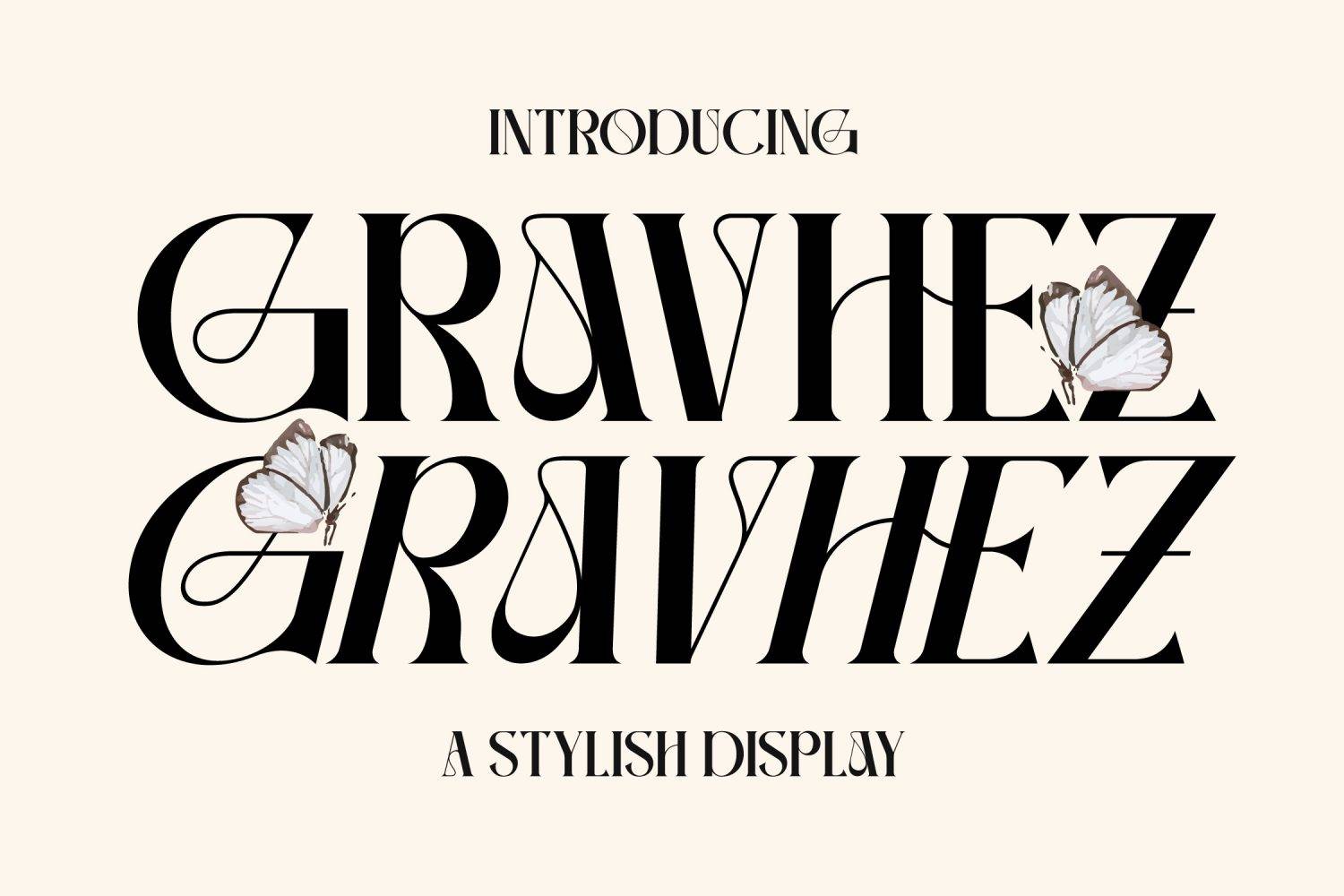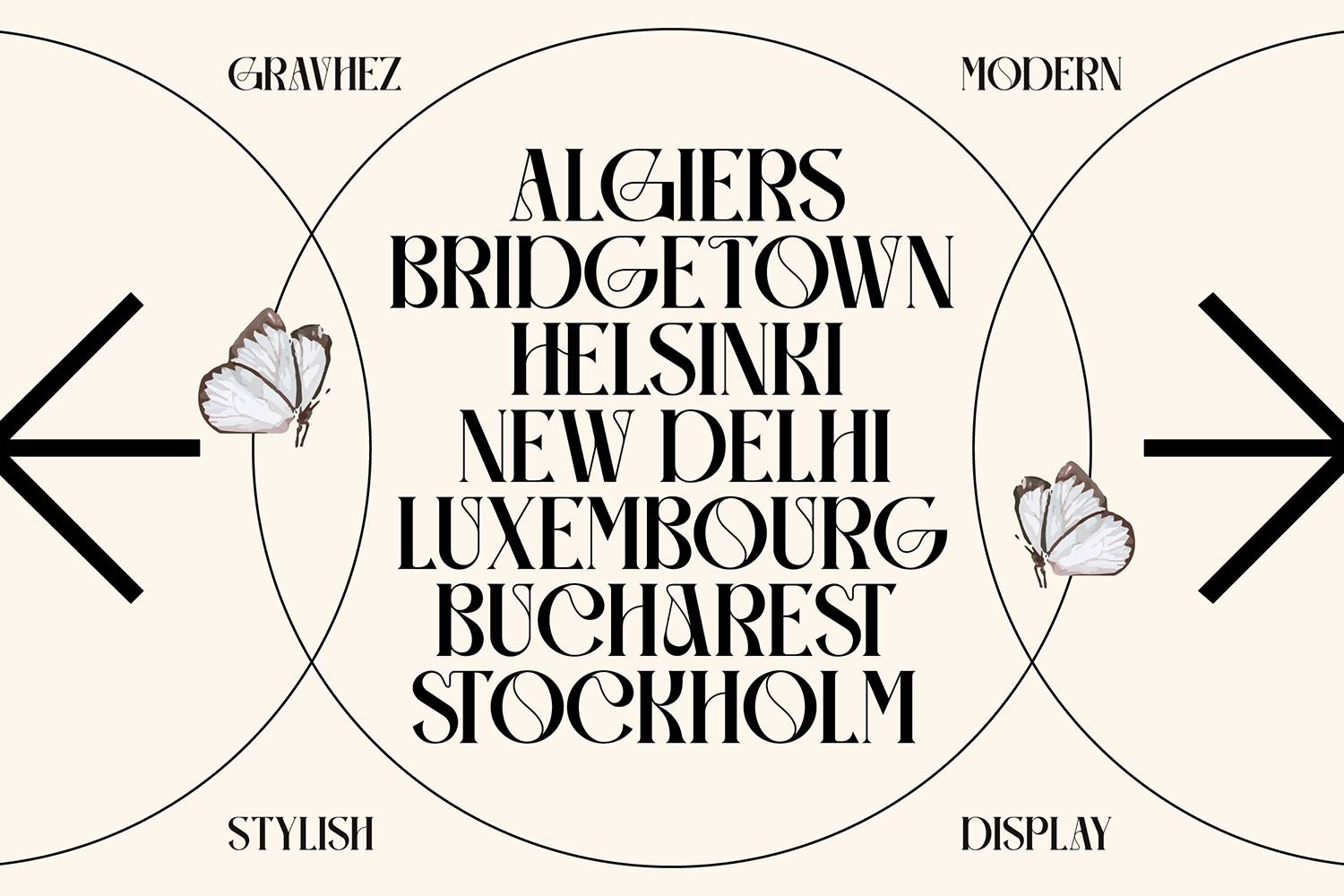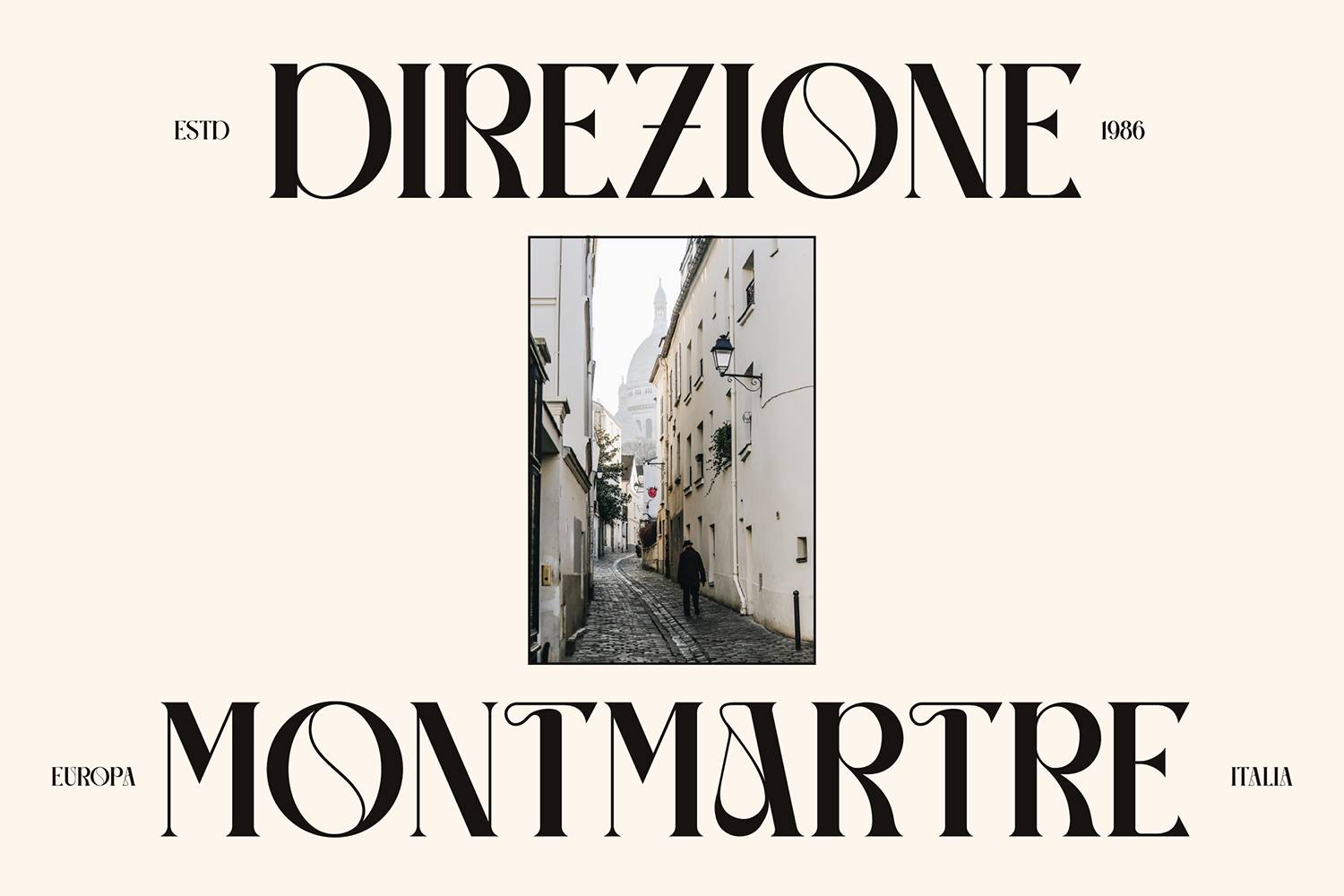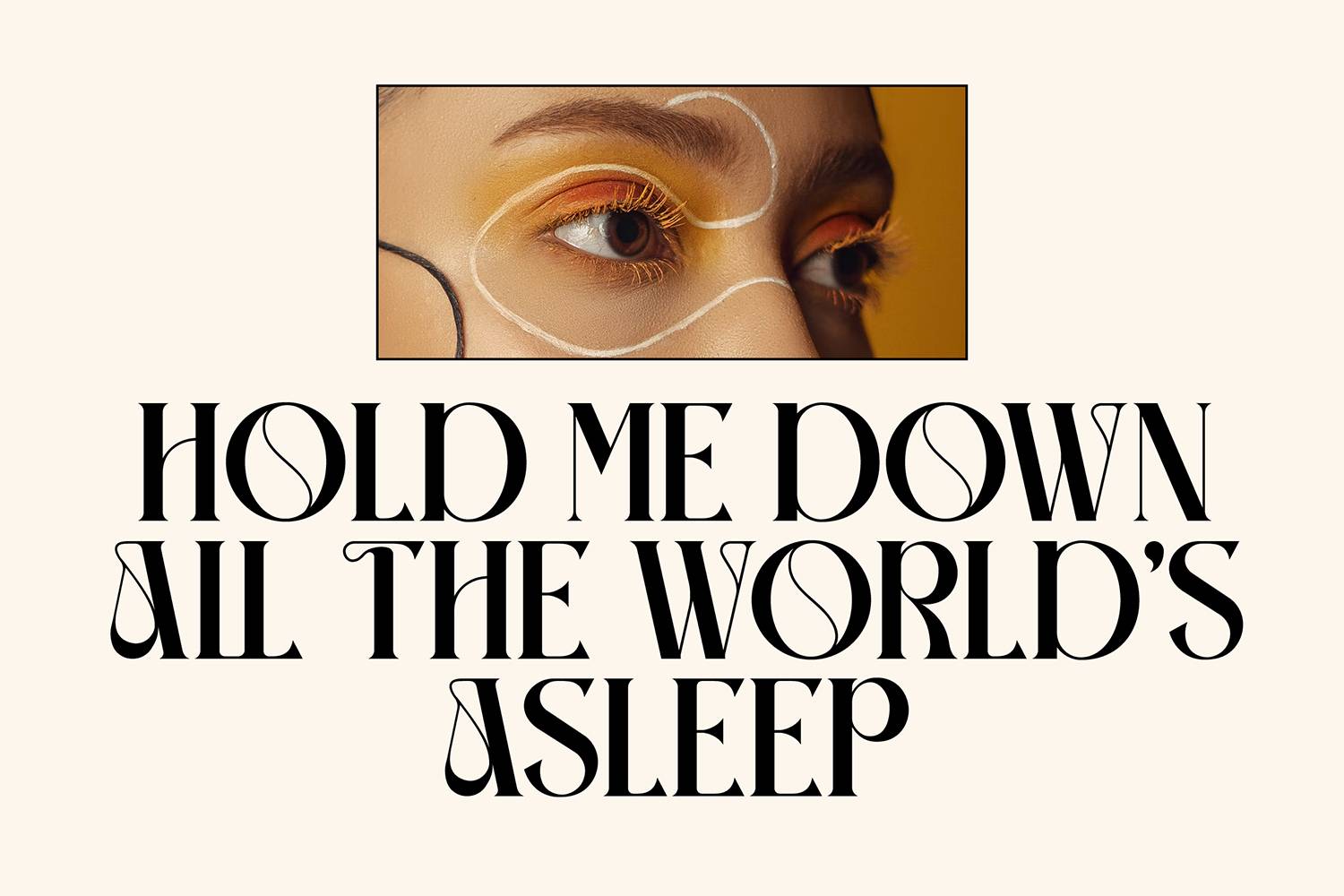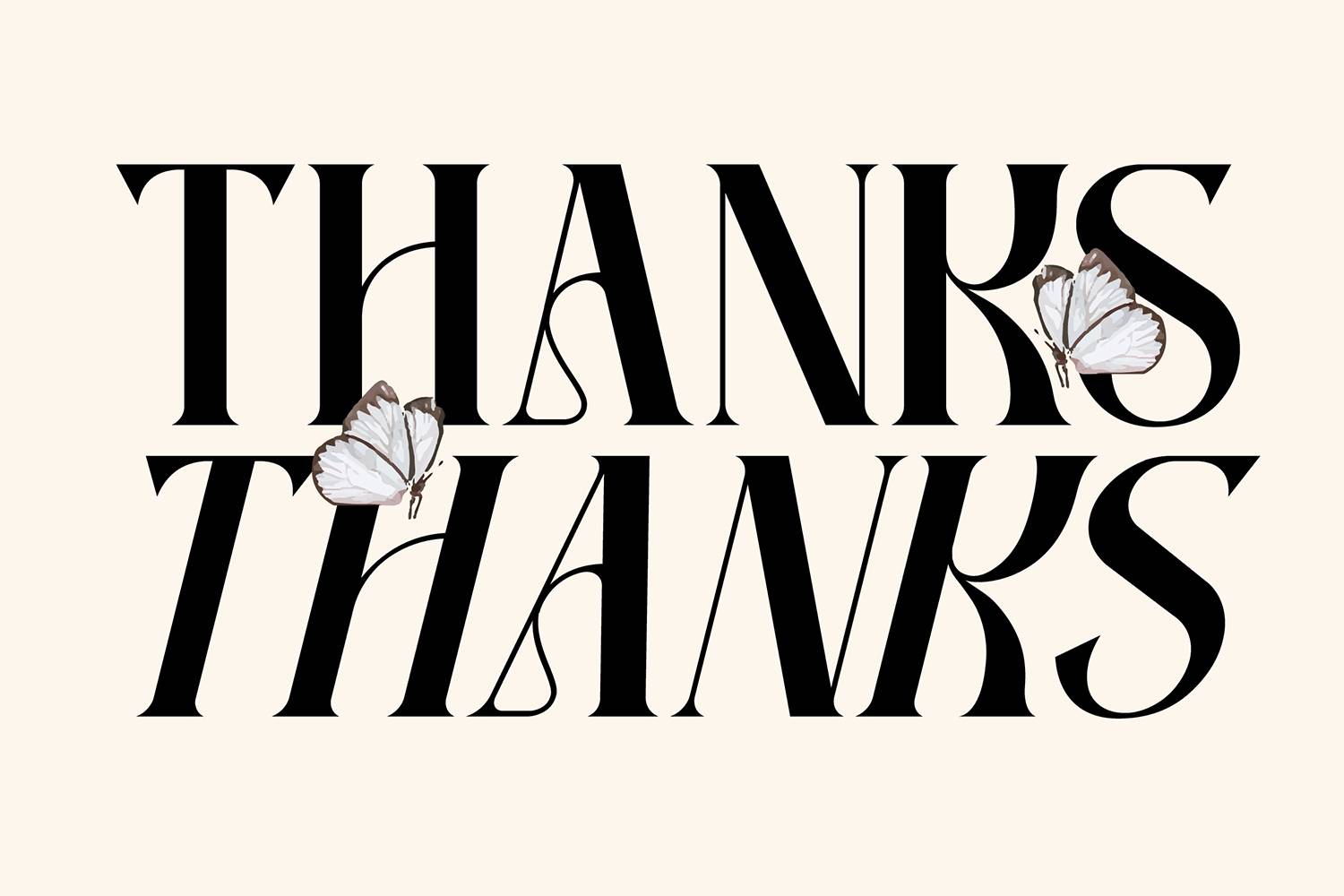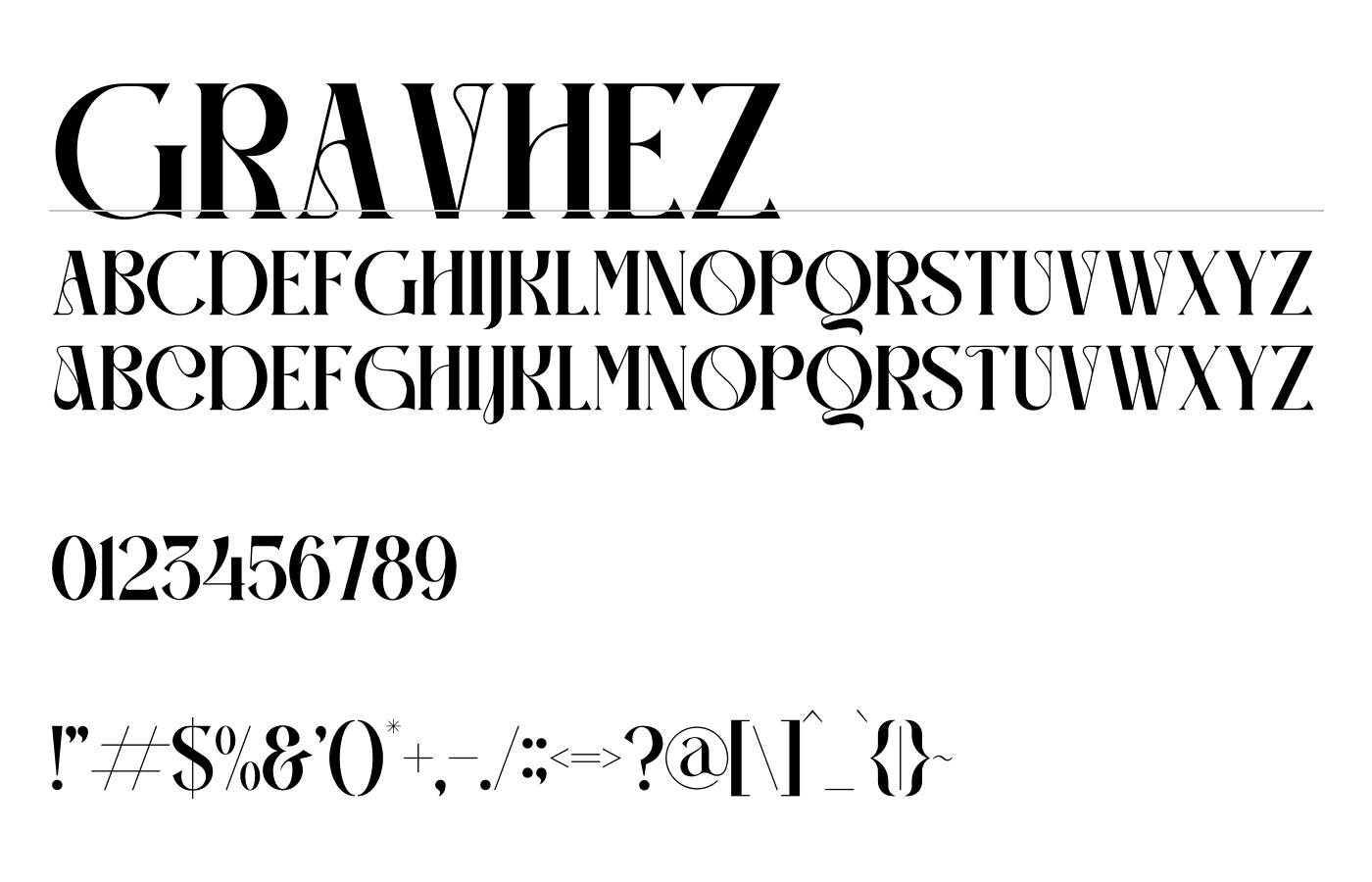
Gravhez is a stylish serif typeface characterized by high contrast between thick and thin strokes, delicate sharp serifs, and an elegant, modern flair with unique, artistic details in its letterforms. Its narrow width and prominent vertical stress lend a sophisticated and luxurious feel, making it ideal for upscale branding, editorial headlines, and fashion-forward design projects. This font works beautifully where a refined, dramatic impact is desired.
Gravhez Font